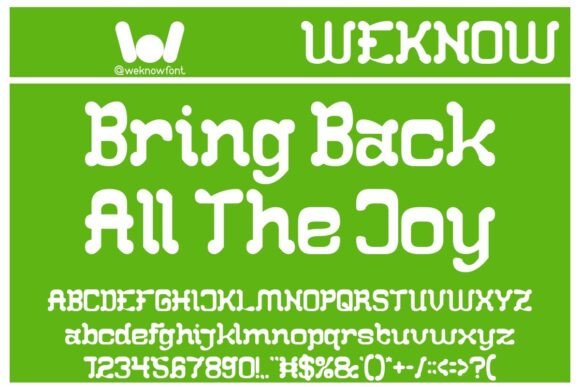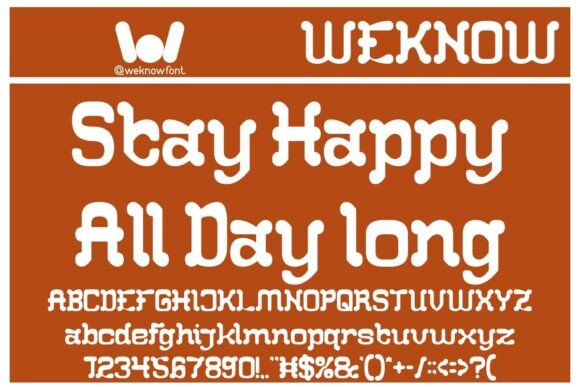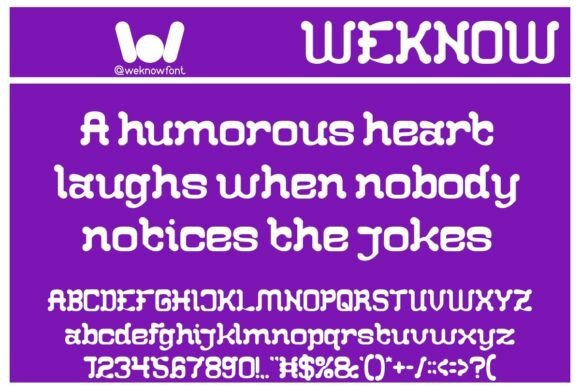
Introduction to Hero of Happiness Font
Remember the moment when you stumbled upon that perfect font that elevated your creative project from good to great? For many designers, that ‘aha’ moment is what makes all the difference in bringing their ideas to life. And today, we’re excited to introduce you to the Hero of Happiness Font – a dynamic display font that’s sure to leave a lasting impression.
Whether you’re working on a high-quality graphic design, crafting an eye-catching logo, or creating a striking brand persona, the Hero of Happiness Font is the perfect design resource to add a touch of whimsy and personality to your work. This multifaceted font is available for free download, making it an accessible and valuable addition to any designer’s toolkit, and its transparent background ensures seamless integration with any design project.
- High-quality design: The Hero of Happiness Font is designed to meet the highest standards of quality, making it perfect for any creative project.
- Transparent background: The font’s transparent background allows for easy customization and versatility in various design applications.
- High-resolution design: The font is designed at a high resolution of 300 DPI, making it suitable for large-scale designs and print materials.
- Unique characteristics: The Hero of Happiness Font features a unique and playful design, making it an excellent choice for creative projects that require a touch of whimsy.
- Perfect for various designs: This font is suitable for a wide range of designs, including logos, branding materials, and creative projects, due to its high-quality and versatile design.
Honest Review: Hero of Happiness Font
As a designer, I’m always on the lookout for high-quality design resources to enhance my creative projects. The Hero of Happiness Font caught my attention, and I decided to give it a try. Here’s my honest review.
- ✨ Beautiful and unique design style that’s perfect for creating a sense of joy and happiness in any project
- ✨ High-quality vector format that allows for seamless scaling and customization
- ✨ Transparent background, making it easy to layer with other design elements
- ⚠️ Limited character set, which might be a concern for designers who need to work with non-English text
- ⚠️ Some users may find the font a bit too playful or whimsical, which might not be suitable for every project
Overall, I’m impressed with the Hero of Happiness Font. While it may not be perfect for every project, it’s a great addition to any designer’s toolkit. The unique design style and high-quality vector format make it an excellent choice for creative projects that require a touch of happiness and joy. I’ll definitely be using it in future projects.
How to Use Hero of Happiness Font
The Hero of Happiness Font is a high-quality, free design resource perfect for any creative project. Its transparent background and unique style make it an ideal choice for various applications.
Experiment with different font sizes, colors, and combinations to achieve the desired look. Use the Hero of Happiness Font in conjunction with other design elements to create a cohesive and visually appealing design.
The Hero of Happiness Font is perfect for:
– Social media graphics and posts
– Wedding invitations and decorations
– Branding and logo design
– Creative projects and presentations